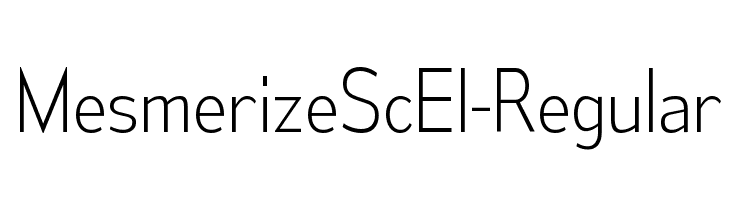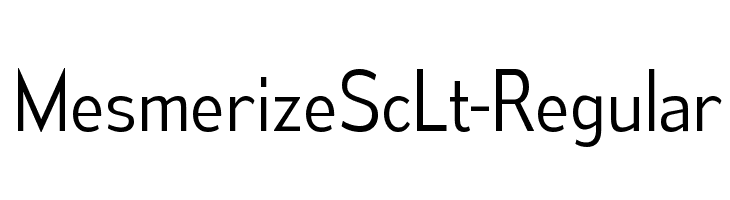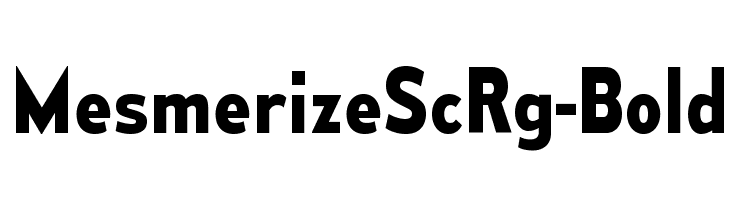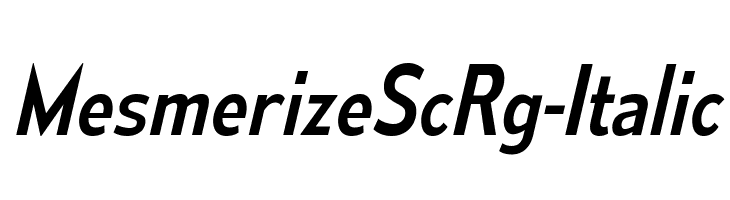
A modern, geometric sans-serif font with clean lines and balanced spacing.
A sleek, modern italic font with consistent stroke width and a dynamic appearance.
A modern sans-serif font with a clean, streamlined design and balanced character spacing.
A bold, modern font with clean, geometric lines and excellent readability.
A bold, italicized font with strong, dynamic strokes and a confident presence.
A sleek, modern italic font with consistent stroke width and elegant design.
A modern sans-serif font with geometric shapes and uniform strokes.
A bold, modern italic font with a sleek, condensed style.
A bold, modern sans-serif font with clean lines and strong presence.
A sleek, italicized font with thin strokes and a modern aesthetic.